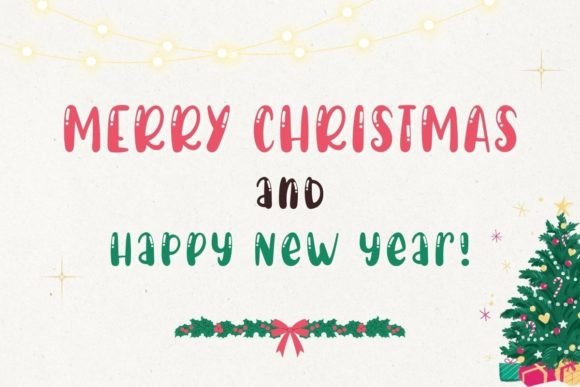
Sugar Lemon Font: A Fun and Bright Handwritten Display Font
The Sugar Lemon Font is a delightful and charming handwritten display font that is perfect for creating lovely designs with a cute summery vibe. Its casual charm and playful personality make it an excellent choice for a wide range of design projects, from t-shirts and stickers to tote-bags, candy packaging, food menus, and more.
Key Features of Sugar Lemon Font
- Handwritten Display Font: Sugar Lemon Font is a carefully crafted handwritten display font that mimics the look and feel of casual, summery handwriting.
- Cute Summery Vibe: The font’s playful and cheerful personality makes it perfect for designs that require a fun and carefree touch.
- Casual Charm: Sugar Lemon Font has a relaxed and informal feel that adds a touch of warmth and personality to any design.
- Versatile: The font is suitable for a wide range of design projects, from t-shirts and stickers to tote-bags, candy packaging, food menus, and more.
Design Uses for Sugar Lemon Font
Sugar Lemon Font is a versatile font that can be used for a variety of design projects. Here are some ideas to get you started:
- T-Shirts: Create fun and playful t-shirt designs that are perfect for summer. Use Sugar Lemon Font to add a cute and casual touch to your designs.
- Stickers: Design stickers that are perfect for laptops, water bottles, or any other surface. Sugar Lemon Font’s playful personality makes it perfect for stickers.
- Tote-Bags: Add a touch of summer fun to your tote-bag designs with Sugar Lemon Font. The font’s casual charm makes it perfect for tote-bags and other fabric designs.
- Candy Packaging: Create eye-catching candy packaging designs that are sure to stand out. Sugar Lemon Font’s playful personality makes it perfect for candy packaging and other food-related designs.
- Food Menus: Add a touch of warmth and personality to your food menus with Sugar Lemon Font. The font’s casual charm makes it perfect for menus, flyers, and other food-related designs.
Typography and Readability
Sugar Lemon Font is designed to be highly readable and visually appealing. The font’s carefully crafted letterforms and spacing ensure that it is easy to read, even at small sizes.
The font’s typography is characterized by:
- Unique Letterforms: Sugar Lemon Font features unique and playful letterforms that add to its charm and personality.
- Optimal Spacing: The font’s spacing is carefully optimized to ensure that it is easy to read and visually appealing.
- High Readability: Sugar Lemon Font is designed to be highly readable, even at small sizes.
Design Tips for Using Sugar Lemon Font
Here are some design tips to help you get the most out of Sugar Lemon Font:
- Use it for Headings: Sugar Lemon Font is perfect for headings and titles. Use it to add a touch of personality and charm to your designs.
- Pair it with Other Fonts: Sugar Lemon Font pairs well with other fonts. Try pairing it with a sans-serif font for a modern look or a serif font for a more traditional look.
- Experiment with Colors: Sugar Lemon Font looks great in a variety of colors. Experiment with different colors to find the one that works best for your design.
- Keep it Simple: Sugar Lemon Font is a playful font. Keep your design simple and clean to ensure that the font is the focus.
Benefits of Using Sugar Lemon Font
Sugar Lemon Font offers a range of benefits for designers, including:
- Unique and Playful: Sugar Lemon Font is a unique and playful font that adds a touch of personality and charm to any design.
- Versatile: The font is suitable for a wide range of design projects, from t-shirts and stickers to tote-bags, candy packaging, food menus, and more.
- Easily Readable: Sugar Lemon Font is designed to be highly readable, even at small sizes.
- Customizable: The font can be customized to fit your design needs. Experiment with different colors, sizes, and styles to find the look that works best for your design.
Sugar Lemon Font is a fun and bright handwritten display font that is perfect for creating lovely designs with a cute summery vibe. Its casual charm and playful personality make it an excellent choice for a wide range of design projects. With its unique letterforms, optimal spacing, and high readability, Sugar Lemon Font is a versatile font that can be used for everything from t-shirts and stickers to tote-bags, candy packaging, food menus, and more.